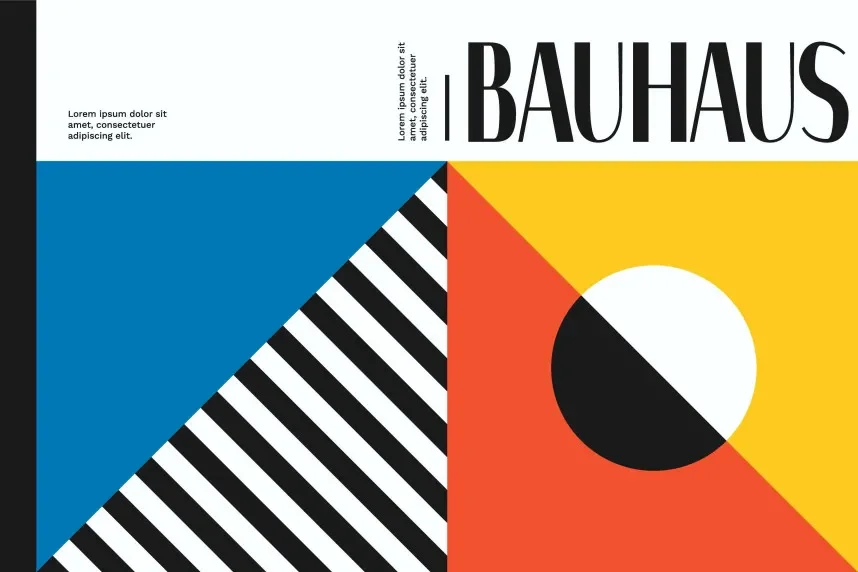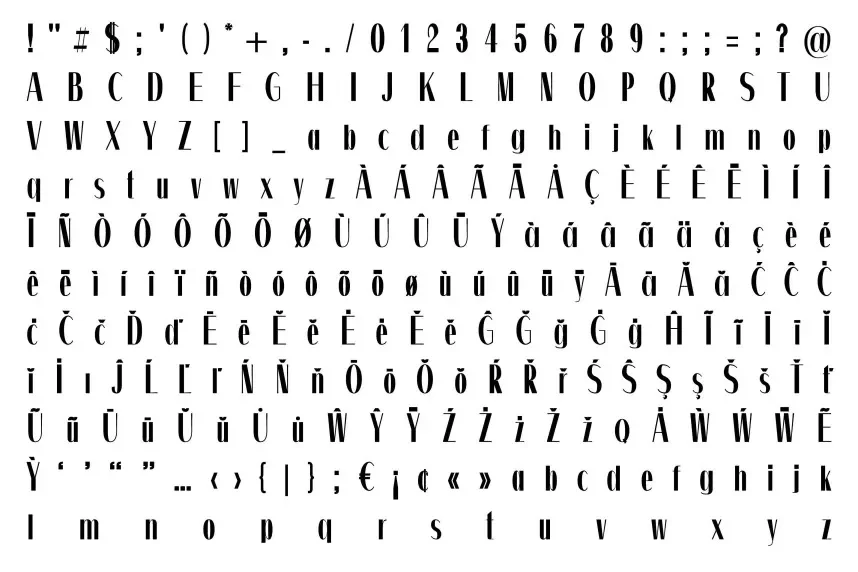
Zurich Font
Designed by Minimalistartstudio
Zurich Font is a sans-serif typeface created to provide legible, consistent text for professional branding, editorial layouts, and user interfaces. It solves common design challenges like maintaining readability in small sizes, balancing letter spacing, and ensuring uniformity across digital and print media.
Zurich features low stroke contrast, open apertures, and carefully spaced letterforms, enhancing clarity and a minimal visual impression. It supports ligatures, numerals, and accented characters for multilingual usage. The font’s simplicity and modern style make it suitable for headings, body text, digital signatures, and branding materials where clean, readable text is essential.